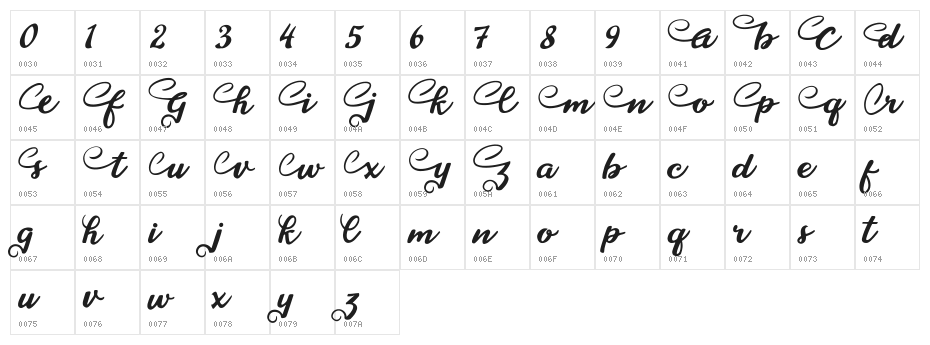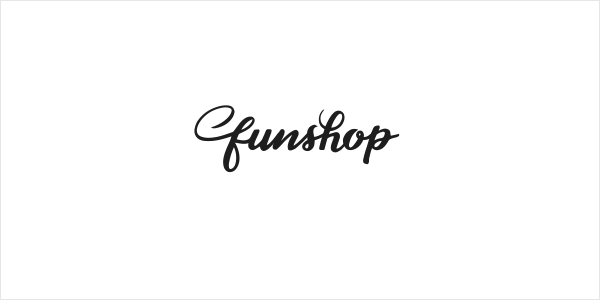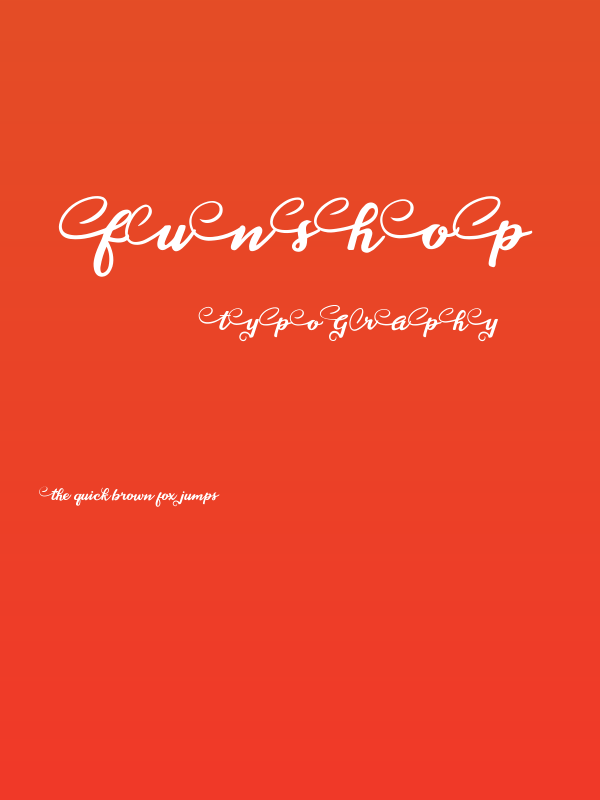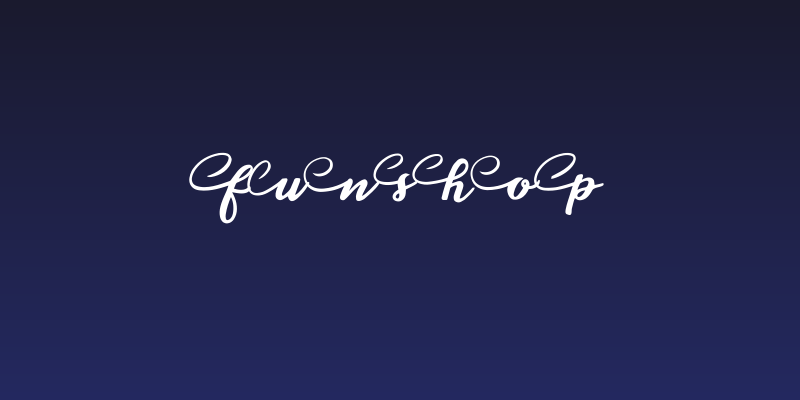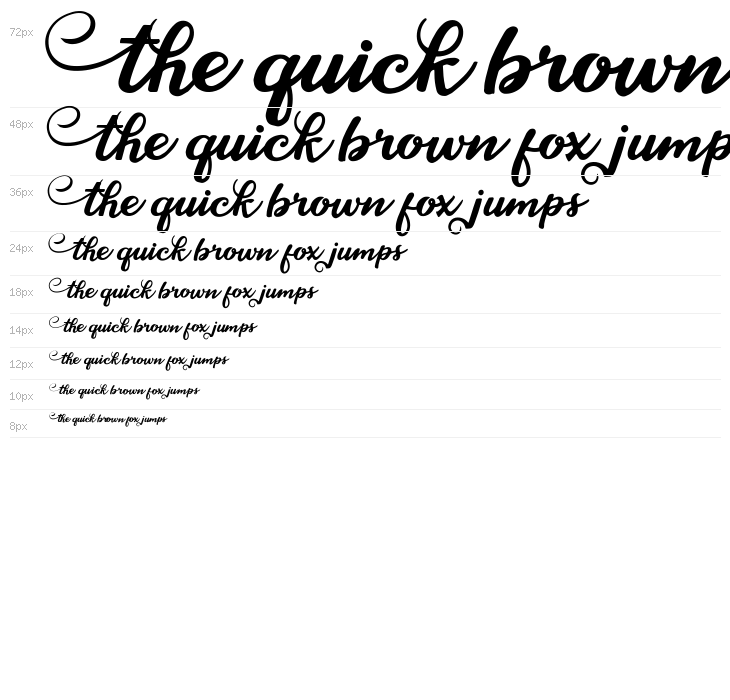
Funshop Font
Funshop Description
This font features a lively and dynamic script style with elegant, flowing curves and flourishes. The uppercase letters are bold and expressive, while the lowercase letters maintain a consistent rhythm with a slightly playful touch. The numbers are well-integrated into the overall design, offering a cohesive look. The special characters add a whimsical flair, making this font suitable for creative and artistic projects. The strokes are thick and consistent, providing a strong visual impact. The overall appearance is both sophisticated and approachable, making it versatile for various design needs.
| Use Case | Logos, Invitations, Artistic projects |
| Proposed Projects | Ideal for wedding invitations, greeting cards, branding, and logo design. |